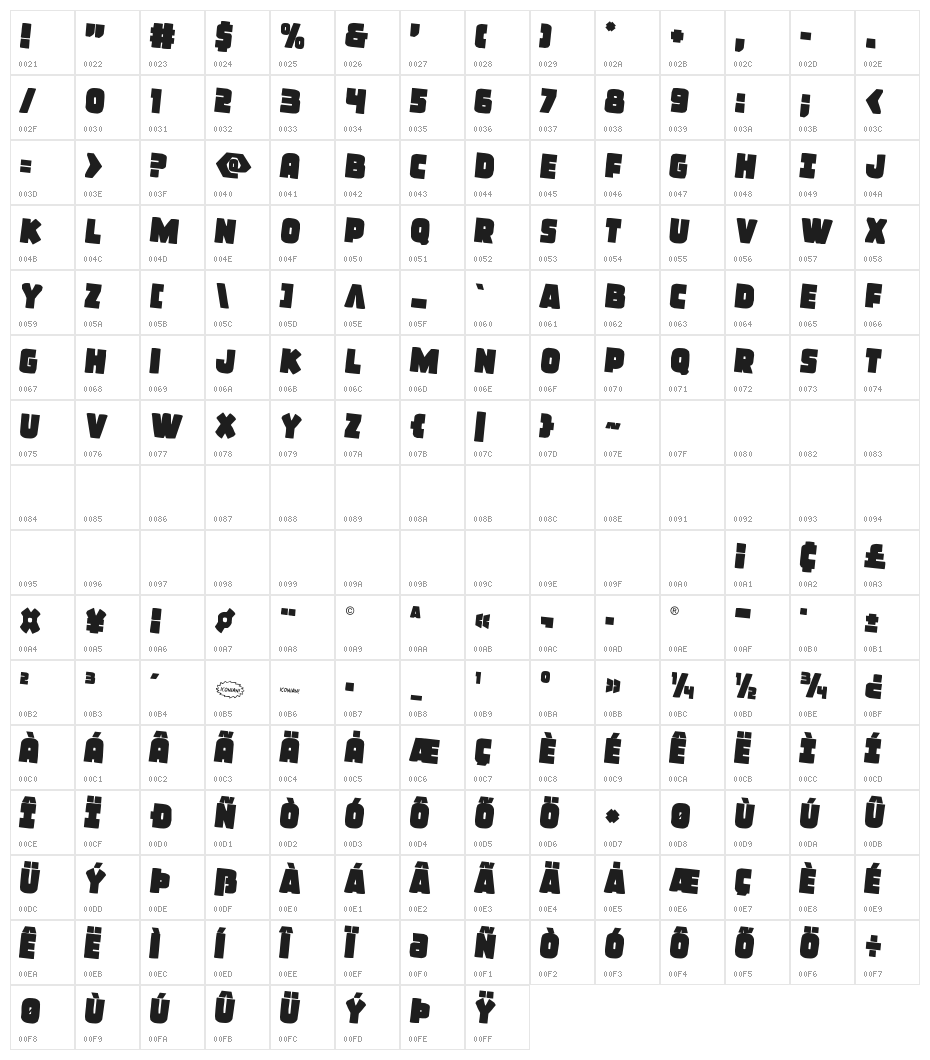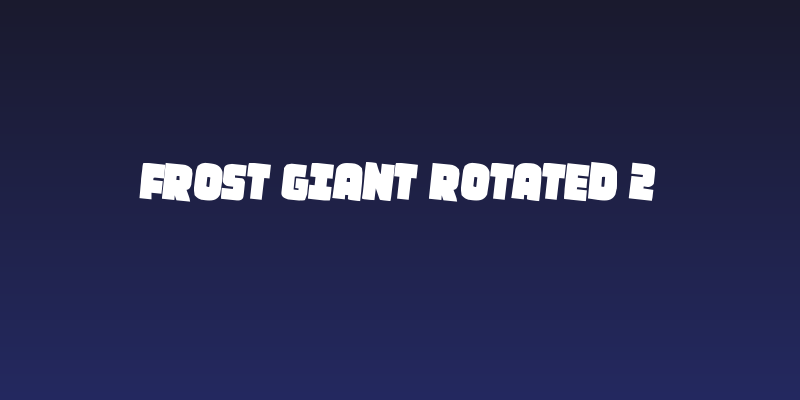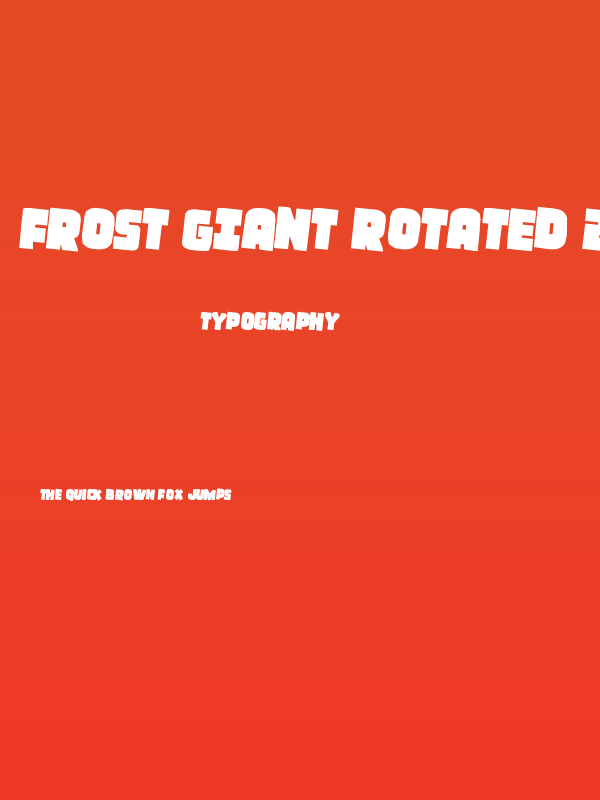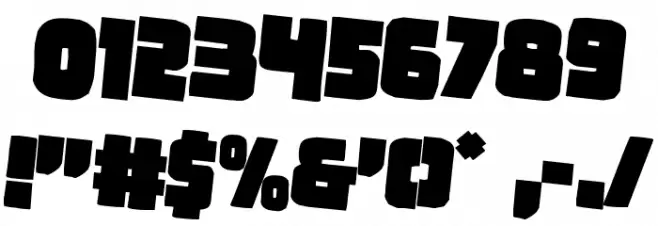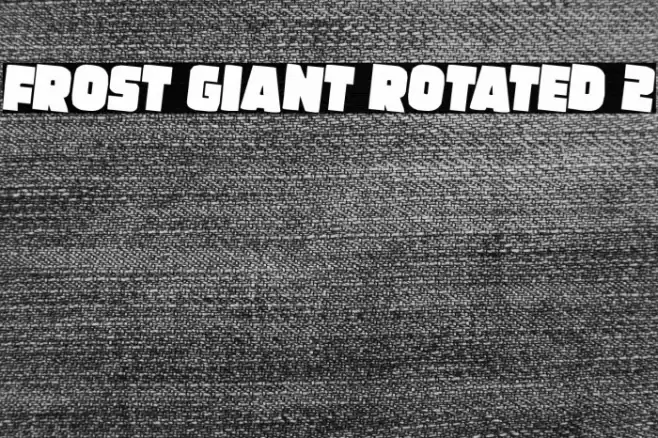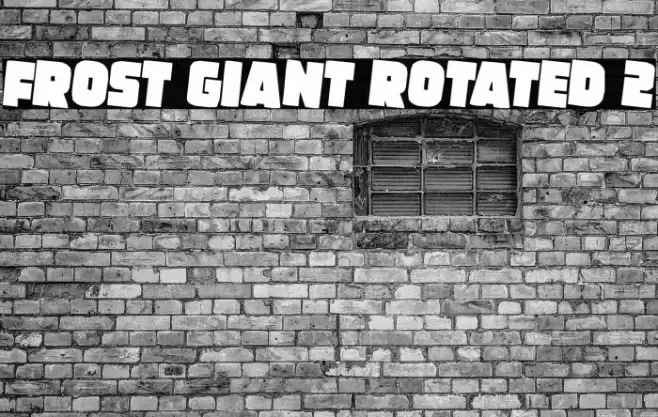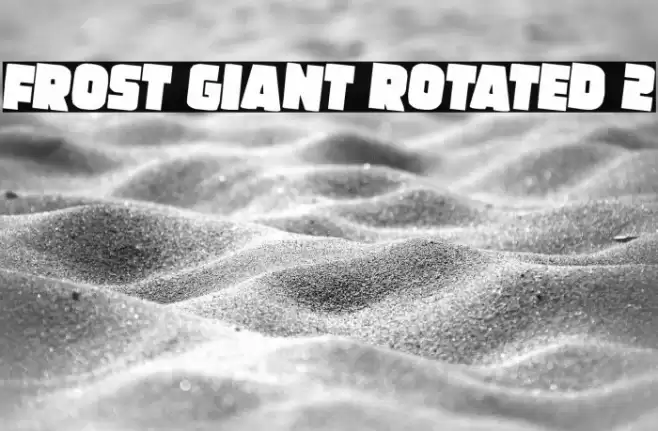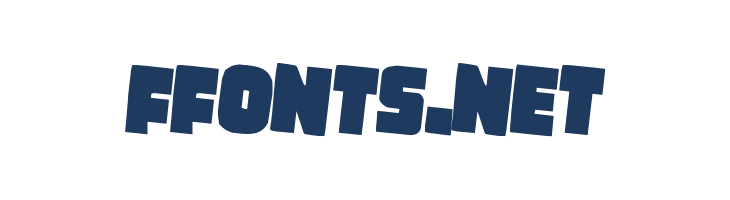
Frost Giant Rotated 2 Font
This bold and dynamic font features thick, blocky letters with a slightly slanted orientation, giving it a sense of movement and energy. The characters are heavily weighted, with a strong presence that makes them stand out. The font's design includes sharp angles and a modern aesthetic, making it suitable for impactful and attention-grabbing text. The numbers and special characters maintain the same bold style, ensuring consistency across all elements. Its unique style is perfect for projects that require a bold statement.
| Proposed Projects | Ideal for posters, headlines, logos, and branding materials that need a strong visual impact. |